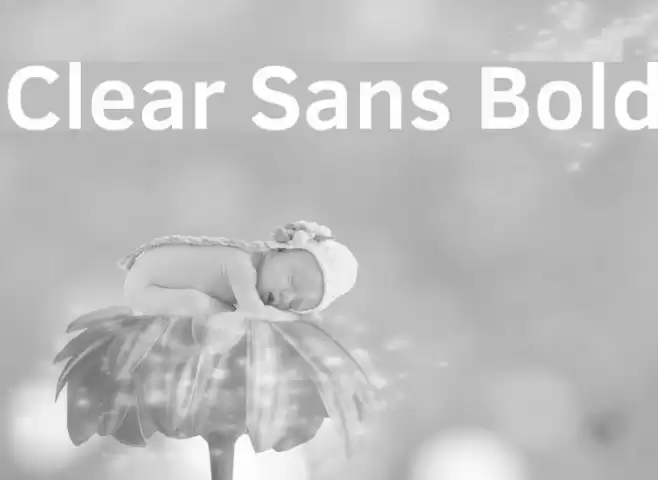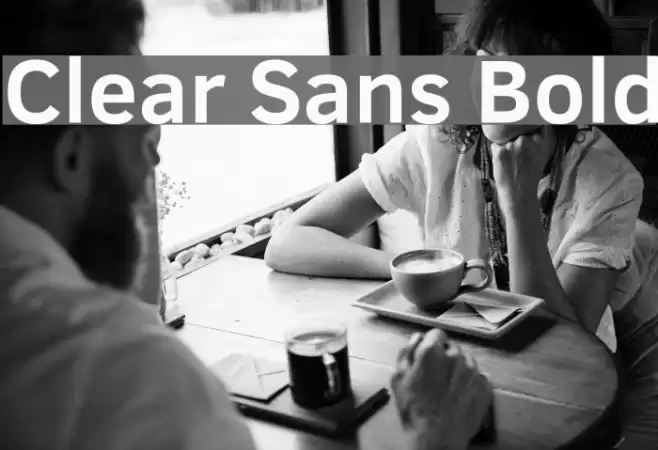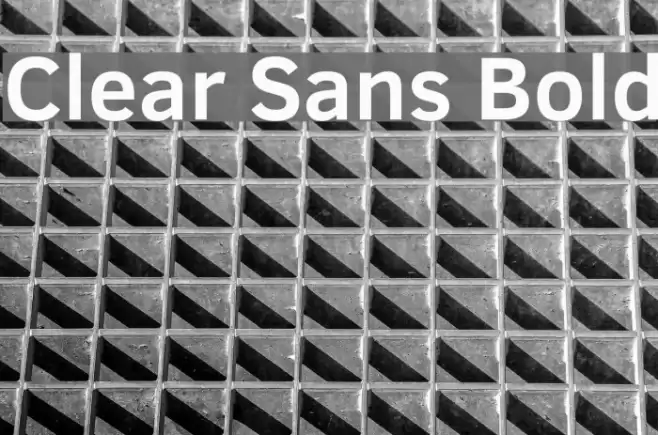
Clear Sans Bold Font
Clear Sans Bold Description
This font exhibits a clean and modern sans-serif style with bold weight, making it highly legible and versatile for various applications. The characters are well-proportioned with consistent stroke widths, contributing to its readability. The uppercase and lowercase letters maintain a uniform appearance, while the numerals are clear and distinct. Special characters are designed to complement the overall aesthetic, ensuring a cohesive look across different text elements. The font's simplicity and clarity make it suitable for both digital and print media, offering a professional and contemporary feel.
A bold, modern sans-serif font with excellent legibility and versatility from Uncategorized fonts.
- Proposed Projects: Ideal for branding, advertising, web design, and editorial projects where clarity and modernity are essential.
- Use Case: Headlines, Body text, Logos